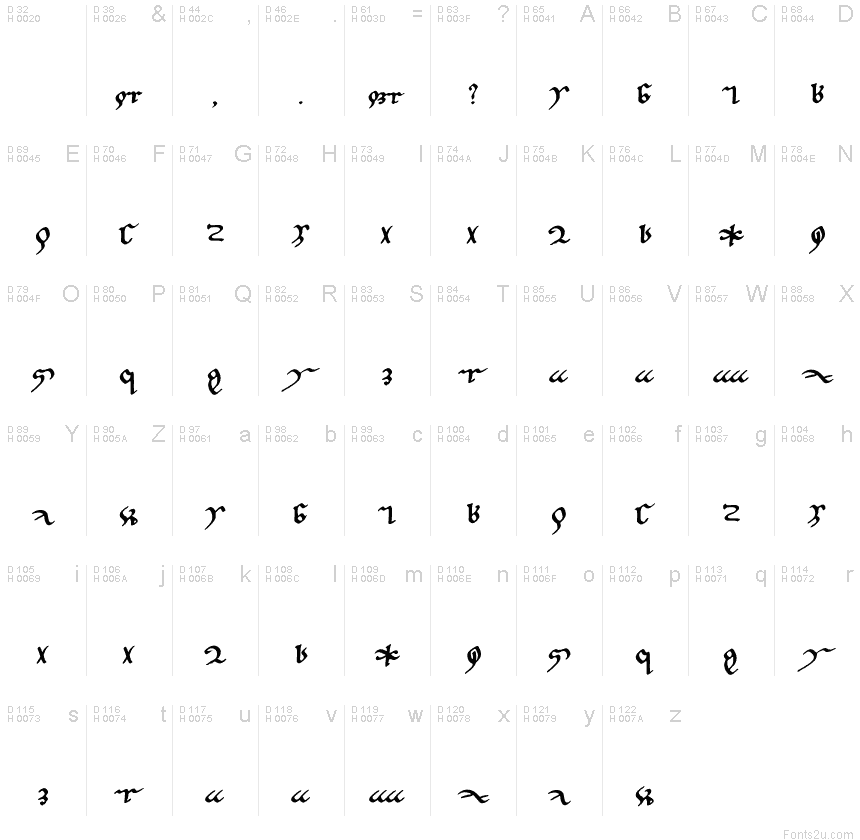
Litterae Ignotae
A Lingua Ignota (Latin for "unknown language") was described by the 12th century abbess of Rupertsberg, Hildegard of Bingen, who apparently used it for mystical purposes. To write it, she used an alphabet of 23 letters, the litterae ignotae. [fom Wikipedia]